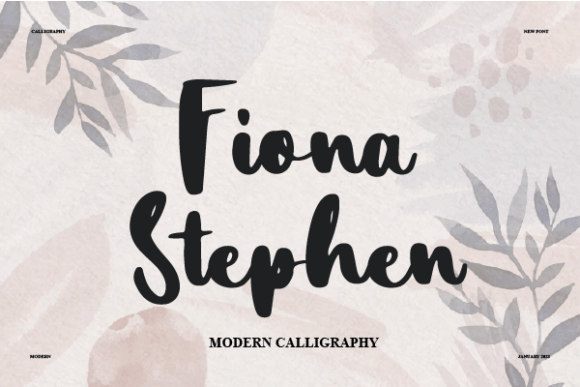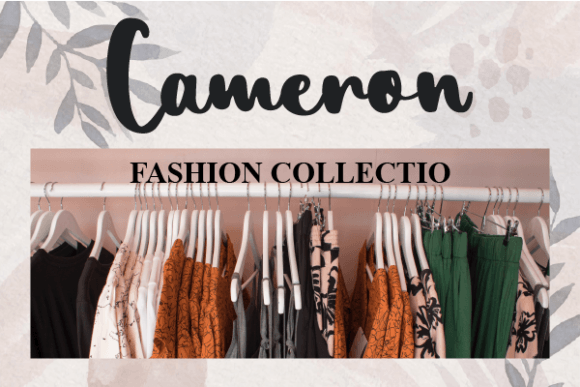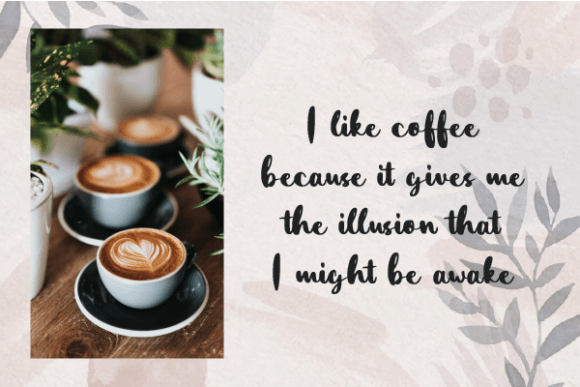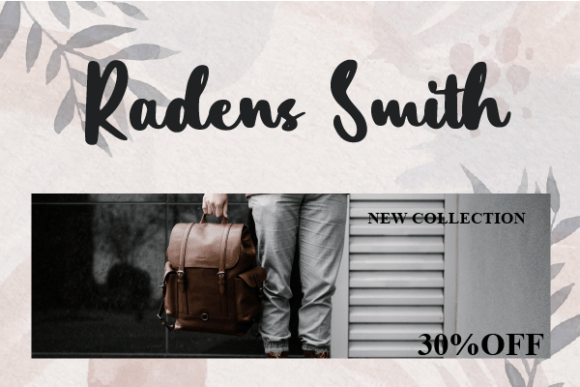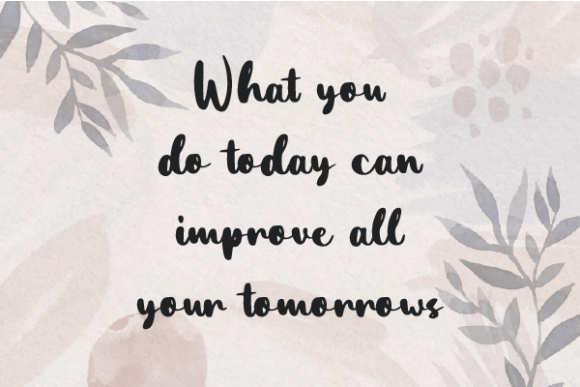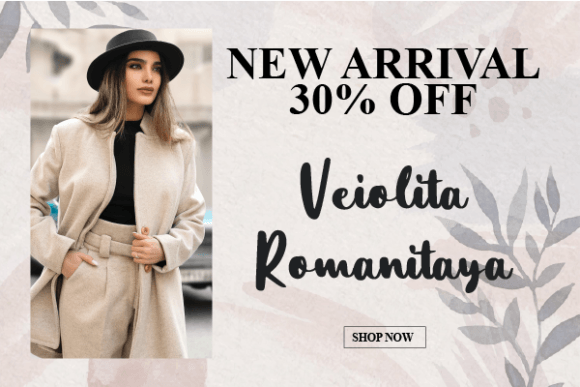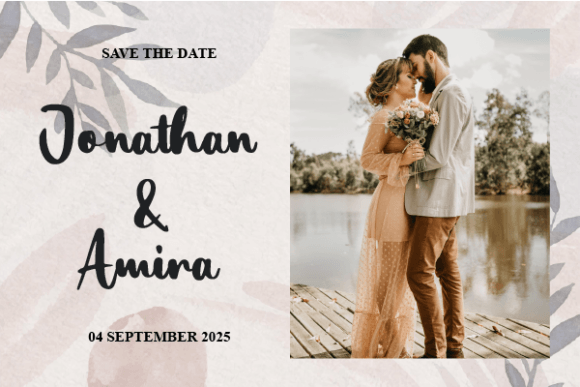
Fiona Stephen
About Fiona Stephen
Fiona Stephen is a lovely and timeless handwritten font. It is the best choice for creating eye-catching logos, branding, and quotes. Every letter has a unique and beautiful touch, which will make your design come alive!